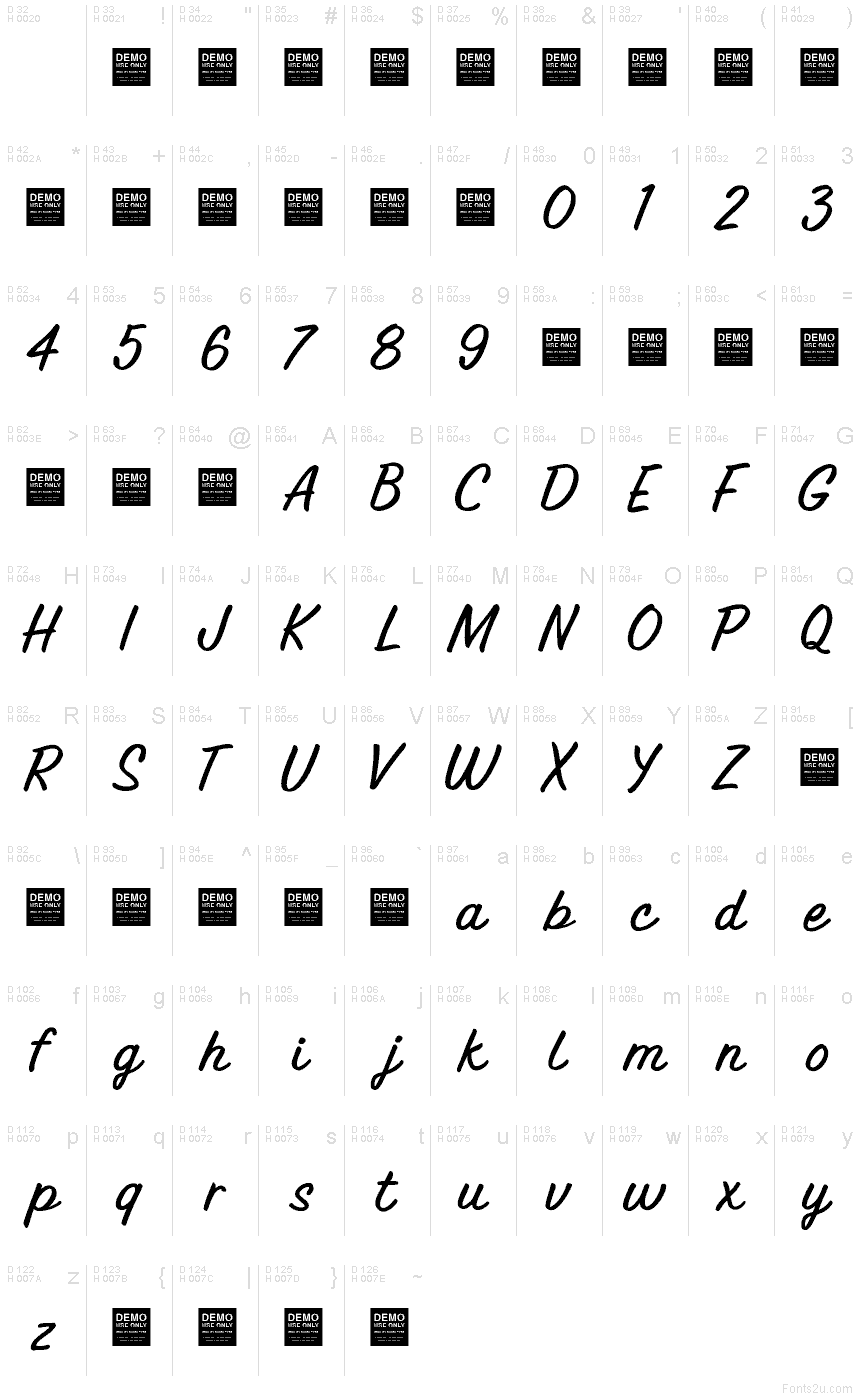
Stroke Genius
Stroke Genius font by BLKBK Fonts is a free handwritten script typeface. It solves the common “too messy or too stiff” script problem with smooth, inky strokes, a gentle slant, and an even rhythm that stays legible at a glance. Rounded joins and relaxed spacing keep words from clumping, so your message reads cleanly while still feeling personal and warm.
Using Stroke Genius, headlines and short phrases shine on logos, product labels, packaging, quote graphics, event flyers, social posts, and casual branding. The elastic curves add friendly energy without shouting, making it a natural fit for lifestyle and food projects. For a simple pairing tip, set body copy in a crisp geometric sans and let this free font handle the accents and titles.